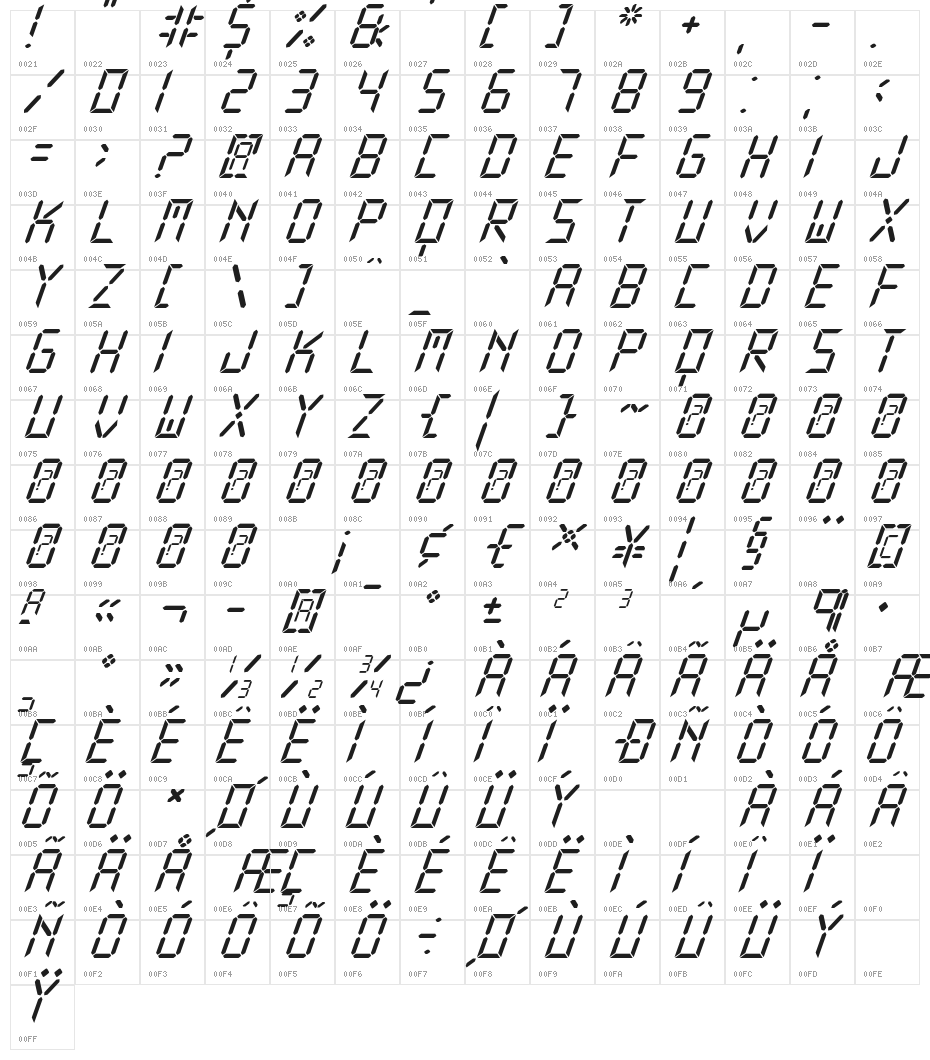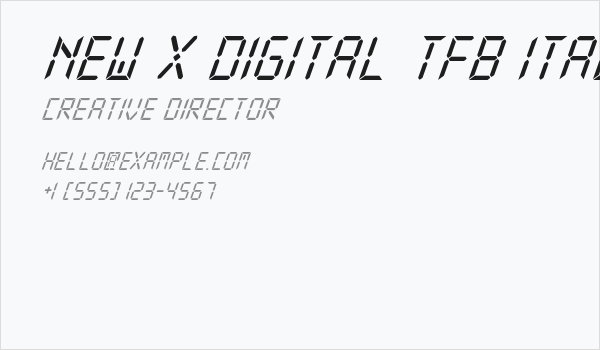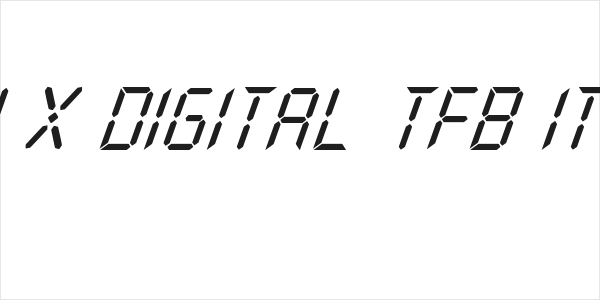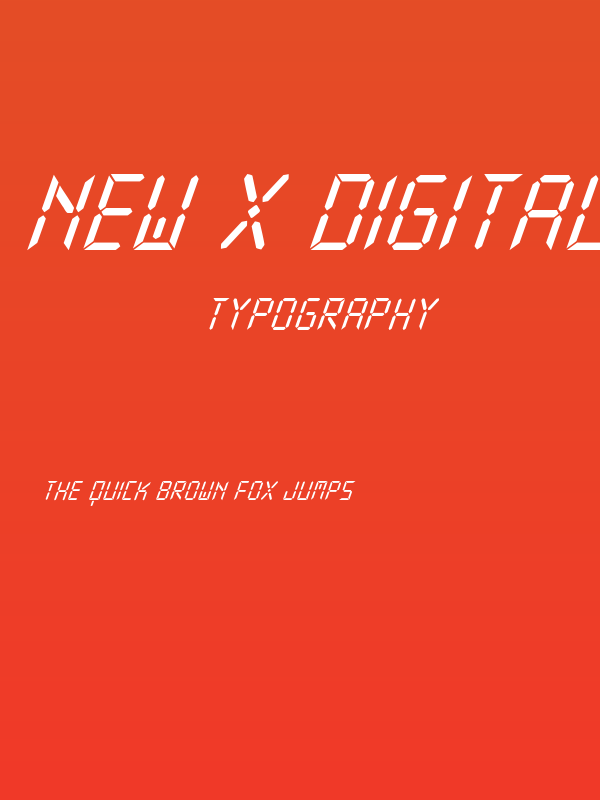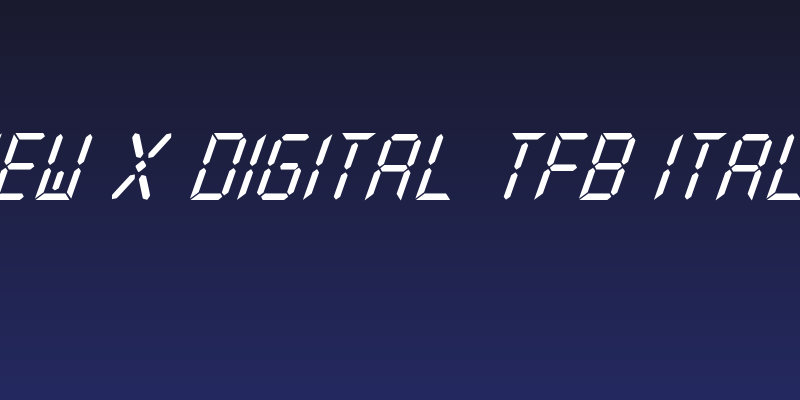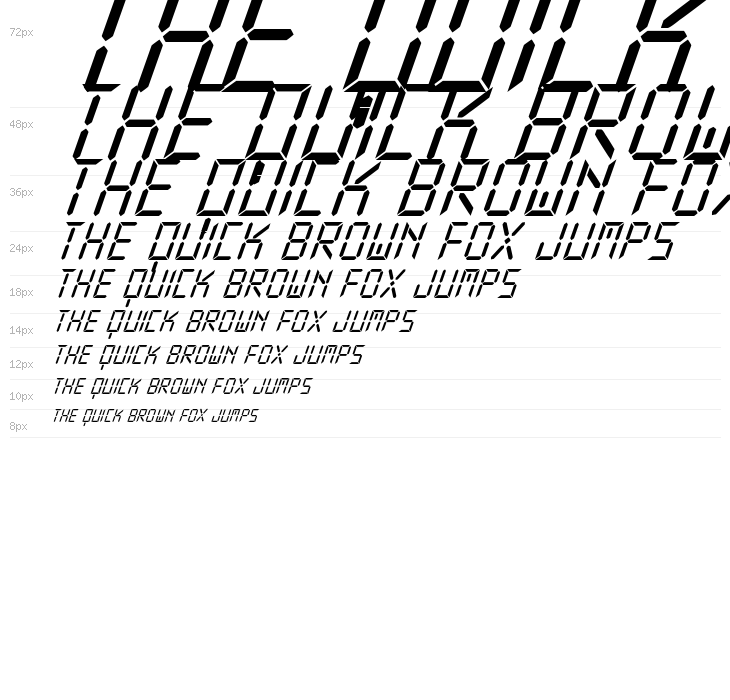
New X Digital tfb Italic Font
New X Digital tfb Italic Description
This font features a modern, digital-inspired design with a distinct italic slant, reminiscent of digital clock displays. The characters are constructed using angular, segmented lines that give a futuristic and technical appearance. The uppercase and lowercase letters maintain a consistent style, with sharp edges and a geometric structure. Numbers and special characters follow the same segmented pattern, ensuring uniformity across all glyphs. The overall design is sleek and minimalistic, making it suitable for tech-related projects or any context where a digital aesthetic is desired.
| Use Case | Headlines, Logos, Digital displays |
| Proposed Projects | Ideal for tech branding, digital interfaces, futuristic designs, and electronic-themed projects. |